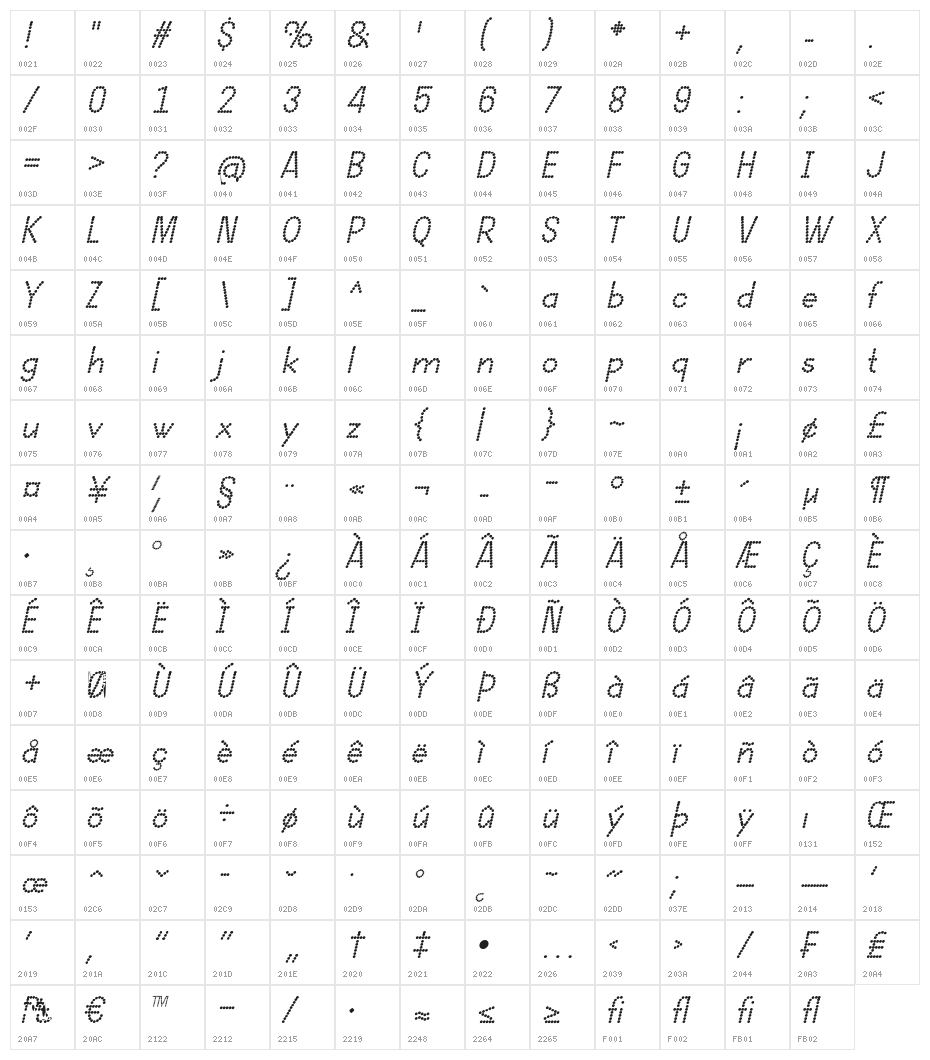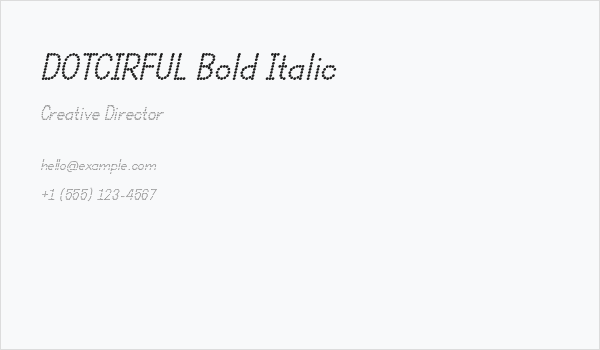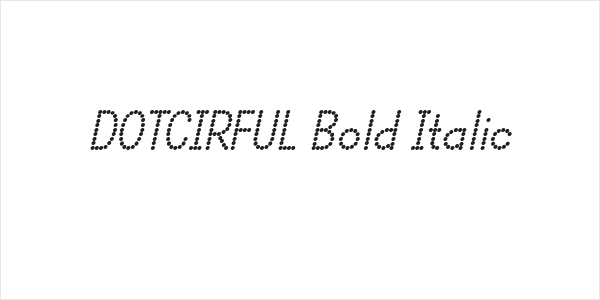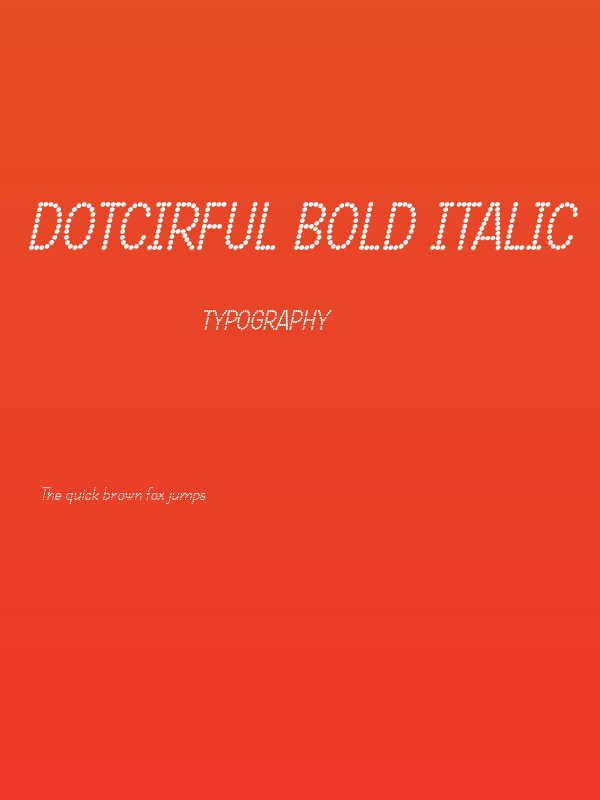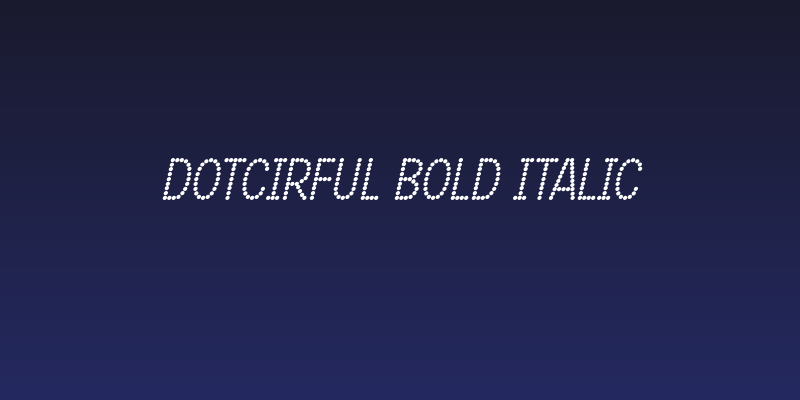
DOTCIRFUL Bold Italic Font
DOTCIRFUL Bold Italic Description
This font features a unique dotted design where each character is composed of a series of evenly spaced circular dots. The letters are slanted, giving an italicized appearance, and the bold weight of the dots ensures high visibility and impact. The uppercase and lowercase letters maintain consistent spacing and alignment, creating a cohesive look. Numbers and special characters are also included, following the same dotted style, making it versatile for various uses. The playful yet structured design makes it suitable for creative projects that require a modern and eye-catching typeface.
| Proposed Projects | Ideal for posters, children's books, creative branding, and event invitations. |